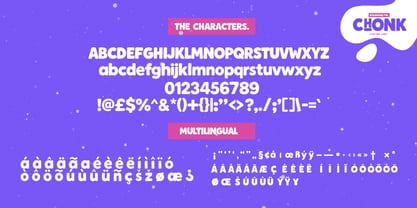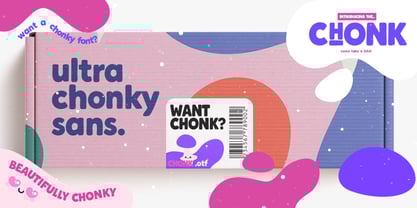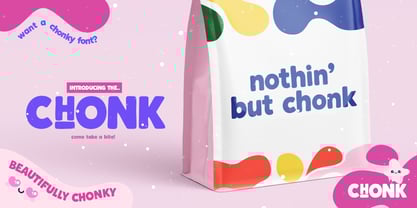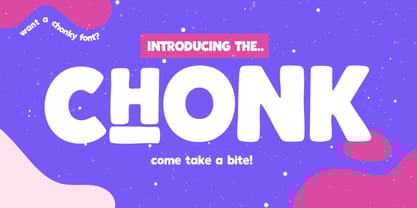
The Chonk Font Family was designed by Eddy Biel and published by Layerform Design Co. Chonk contains 4 styles and family package options.
Introducing CHONK - Bold Display Font An honest, chonky, thick, sans-serif display font perfect for print and packaging design. It currently comes with support for Uppercase, Lowercase, Numbers & Punctuation, FULL Multilingual support and 4 different versions, alongside standard ligatures. The designs were inspired by various games i've played, and packaging designs i've worked on in the past, which have had super unique, chunky fonts. Thanks for all the support, Eddy
Chonk